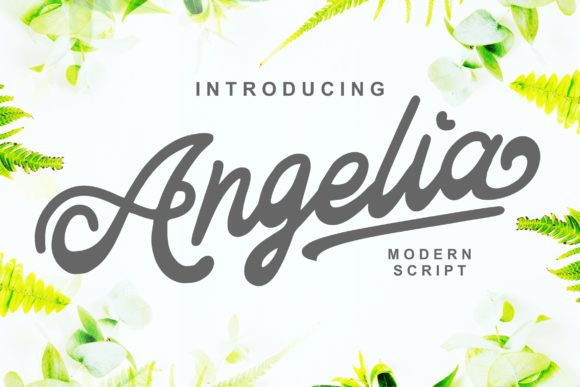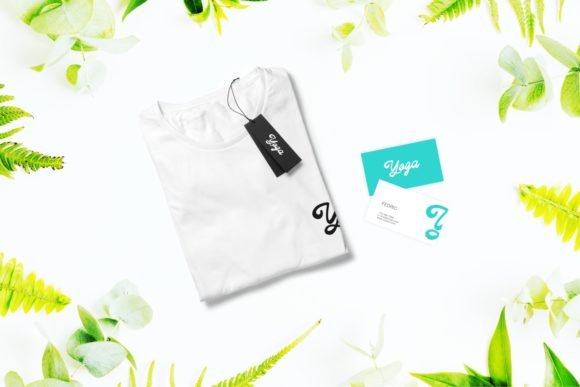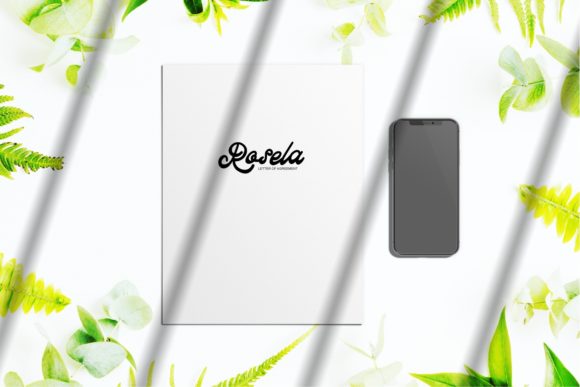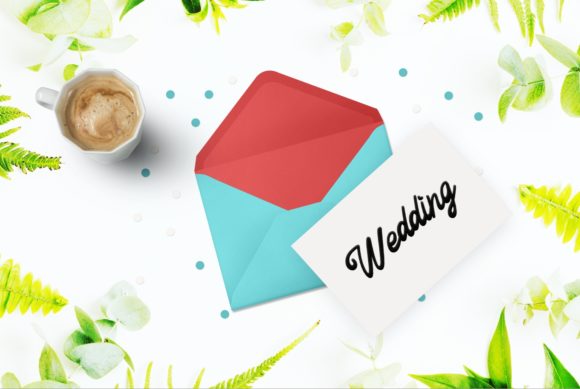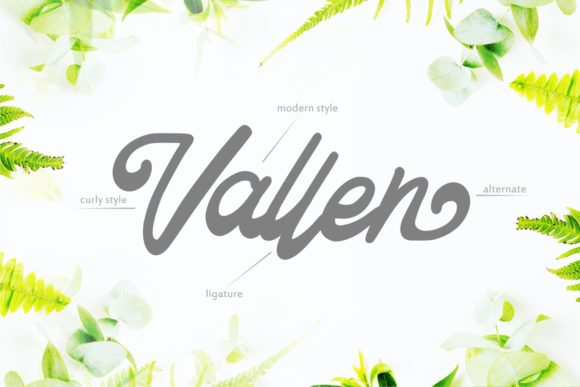
HomeScript FontsAngelia Font Script Fonts Angelia Font FacebookXPinterestWhatsApp Angelia Font Poster 2 Angelia Font Poster 3 Angelia Font Poster 4 Angelia Font Poster 5 About Angelia Font Angelia combines swirly swashes and bold strokes into one fun script. DOWNLOAD NOW People also explored Lantana Font Calliope Font Monogram Blaster Font Blacksign Font Gessetto Dropping Font Ainsley Regina Font Brother Font Stitka Font 350 0 TagsAngelia Font Previous articleQuenty FontNext articleBroady Duo Font LEAVE A REPLY Cancel reply Comment: Please enter your comment! Name:* Please enter your name here Email:* You have entered an incorrect email address! Please enter your email address here Website: Save my name, email, and website in this browser for the next time I comment. Personal Use Free Love Ya Personal Use Free Read more about this font 1313 Mockingbird Lane Personal Use Free Read more about this font Goodline Font Personal Use Free Read more about this font Party Pooper Personal Use Free Read more about this font BLOG Using Fonts in Digital Marketing: Tips to Strengthen Your Brand Identity In the realm of digital marketing, every visual element plays a crucial role in shaping a brand's identity, and fonts are no exception. The... Free Fonts Risk: Why Free Fonts Can Be Dangerous for Designers To increase your work productivity, choose the most readable fonts. How to Install and Use Fonts on Windows, macOS, and Web Projects